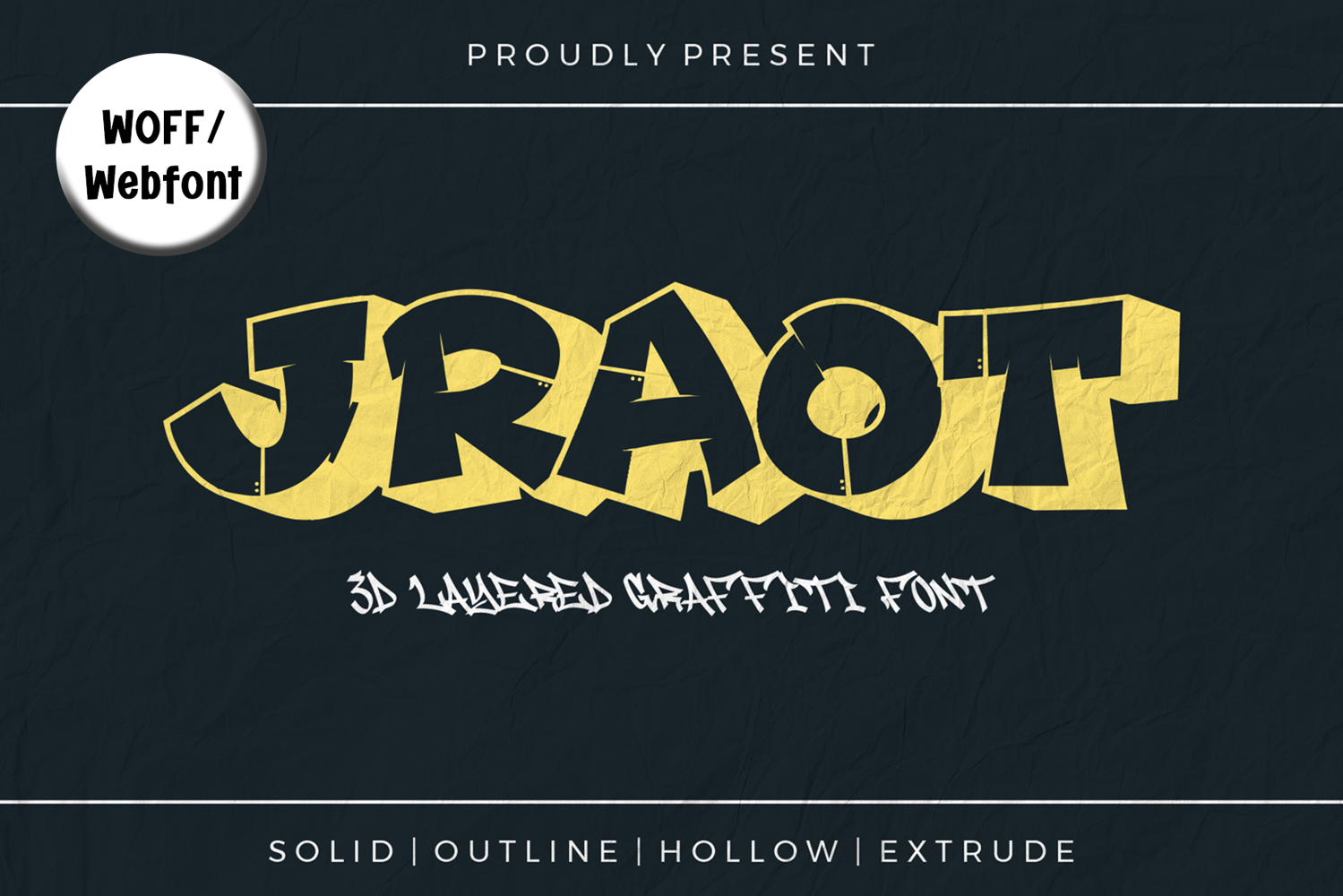
Jraot | Webfont Graffiti Display Typeface with 4 Layered
Jraot is a 3D graffiti webfont designed with solid street aesthetics. The four layered styles—Solid, Outline, Hollow, and Extrude—allow designers to mix and match typography in digital environments. Ideal for websites, banners, game interfaces, or online branding needing bold graffiti vibes.
• Versatile for branding, headline, or printing product